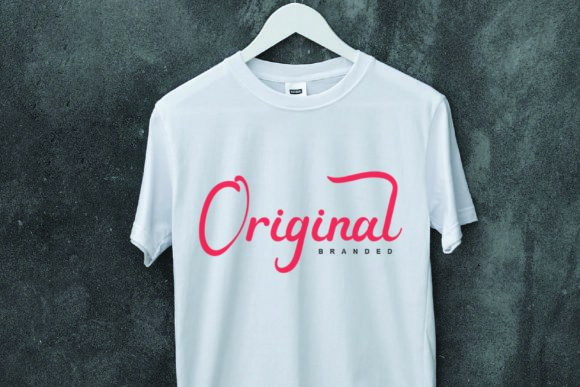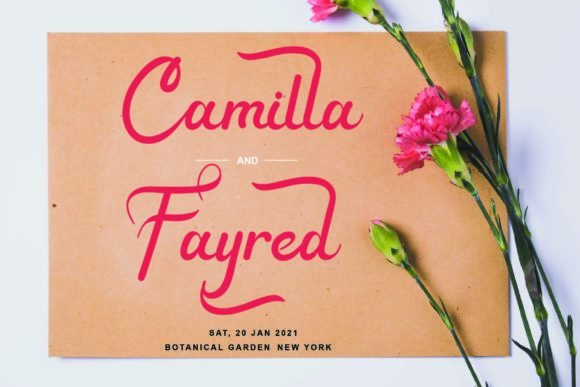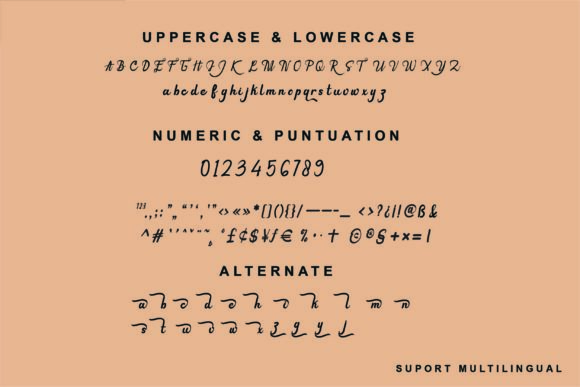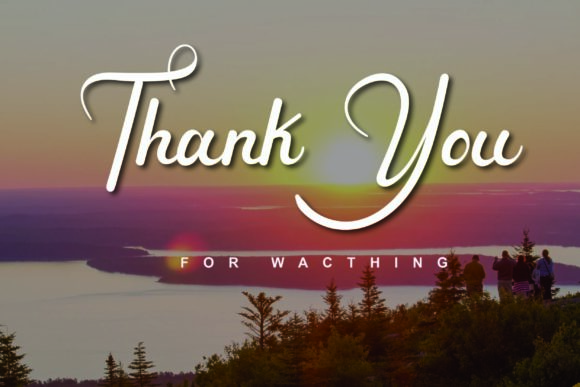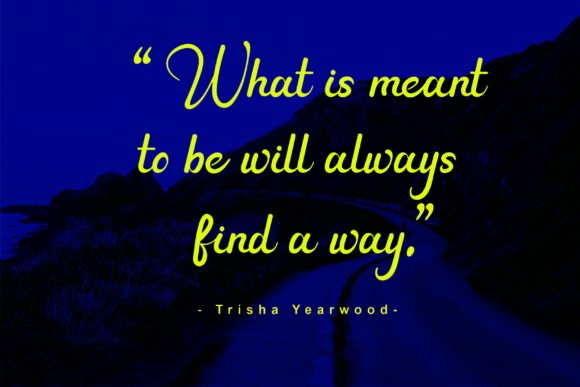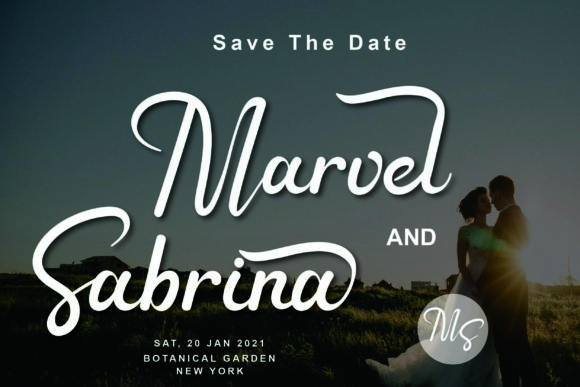
Introduction to Sing Kagu Font
Have you ever been working on a creative project and found the perfect font, but it just didn’t quite fit? You’ve spent hours searching through design resources, trying to find that elusive combination of elegance and style. Well, put down your search and take a deep breath, because we’ve got the solution for you. Say hello to the stunning Sing Kagu Font, a delicate, handwritten font that’s sure to elevate any design to the next level.
With its beautiful, well-balanced characters and stylish alternates, Sing Kagu Font is the perfect match for any project. Whether you’re working on a logo, brochure, or website, this high-quality font is sure to bring a touch of sophistication and refinement to your design. And the best part? It’s a free download, making it an accessible and valuable resource for designers of all levels.
- One of the unique characteristics of Sing Kagu Font is its elegant and sophisticated design, making it perfect for use in high-end creative projects.
Honest Review: Sing Kagu Font
I recently stumbled upon the Sing Kagu Font, and I must say it’s been a great addition to my design resource collection. This high-quality font is perfect for any creative project that requires a unique touch.
- ✨ The font’s elegant and modern design makes it perfect for branding and advertising materials.
- ✨ The transparent background allows for easy customization and seamless integration with any design.
- ⚠️ The font is not suitable for large-scale text, as it can become difficult to read at larger sizes.
- ⚠️ The font family is relatively small, which may limit its versatility in certain design projects.
Overall, I’m impressed with the Sing Kagu Font’s quality and design. While it may have some limitations, it’s a great resource for designers looking to add a unique touch to their creative projects. If you’re looking for a high-quality font with a modern design, I’d definitely recommend giving Sing Kagu Font a try.
The Sing Kagu Font is perfect for logos, business cards, and other branding materials. It’s also great for creating eye-catching social media graphics, posters, and flyers.